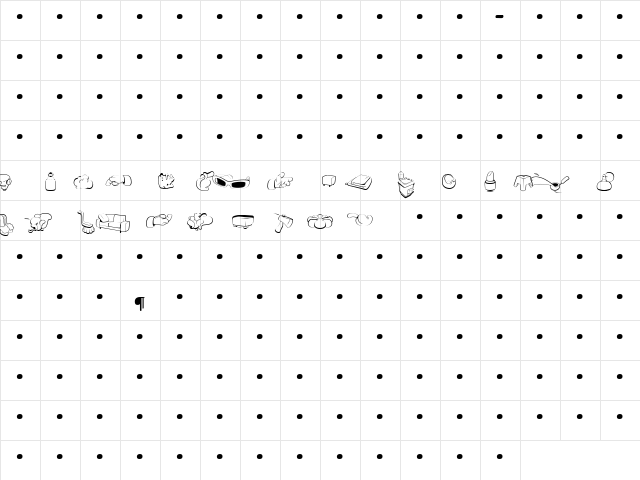
SaunaDingbats-Outline Regular
Design Context for SaunaDingbats-Outline Typeface
SaunaDingbats-Outline brings ornamental detail and strong personality to headlines and identities, where visual impact matters more than quiet functionality.
Font Pairing: Pair with a clean neutral sans-serif for body copy to let SaunaDingbats-Outline's character lead without overwhelming the composition.
Pro Tip: Treat SaunaDingbats-Outline as the centrepiece of your typographic hierarchy. One strong heading set in a decorative face can carry an entire layout.